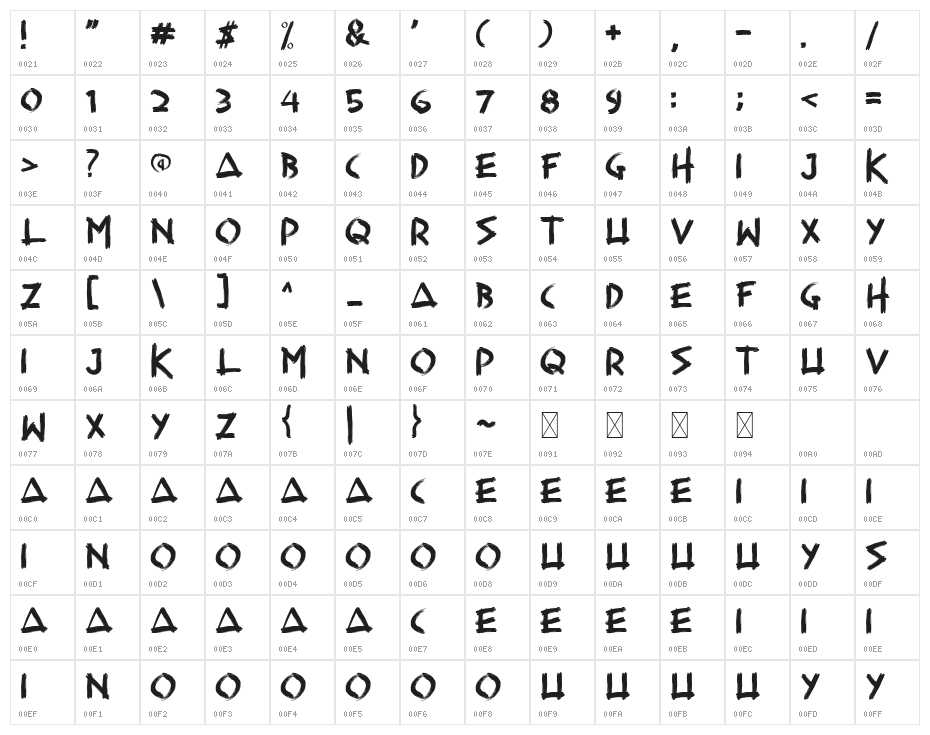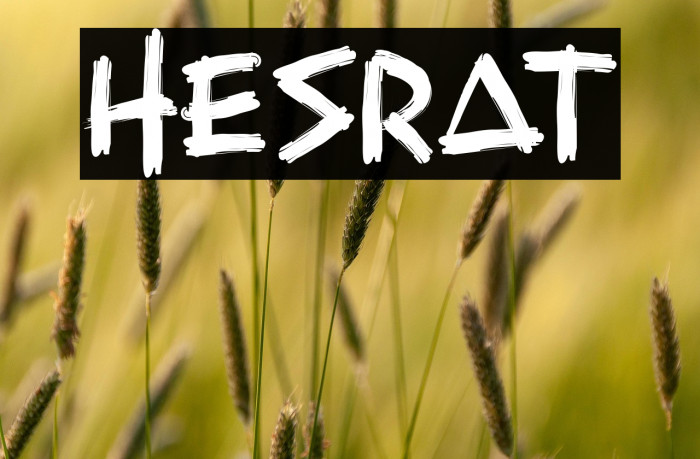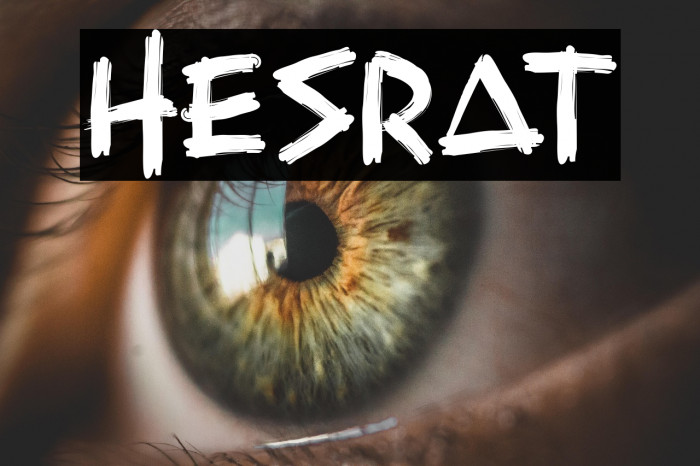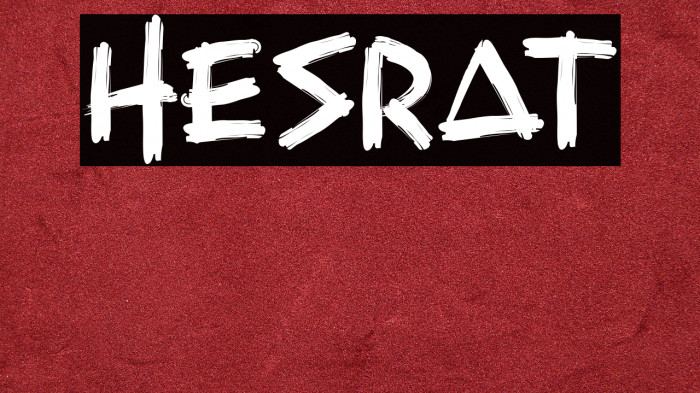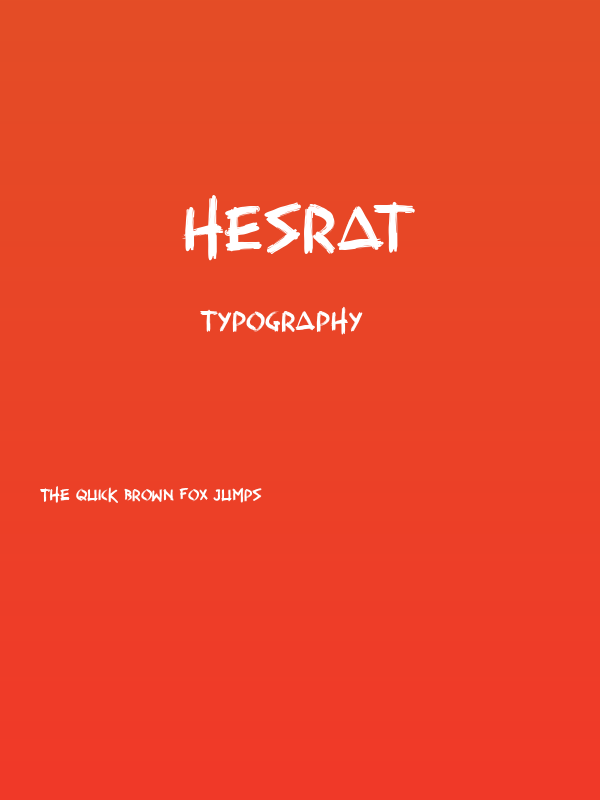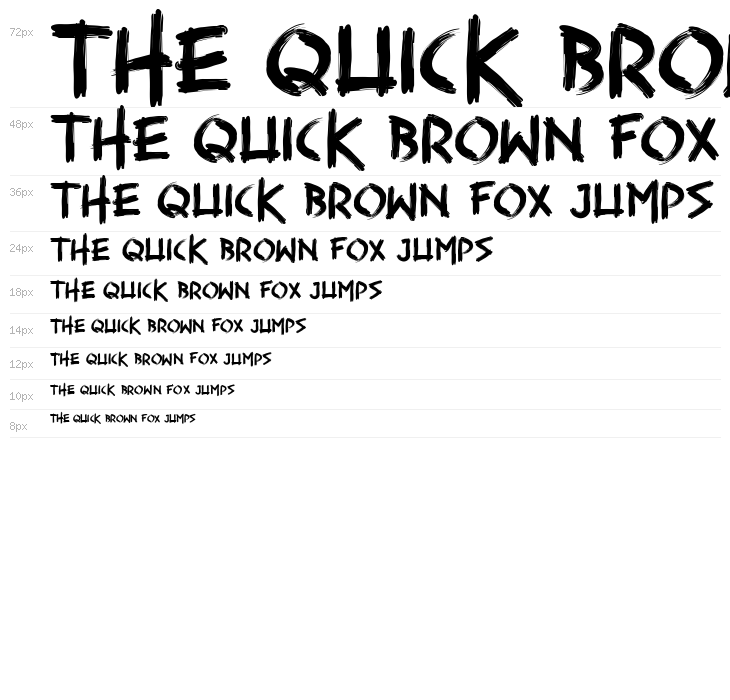
Hesrat Font
Hesrat Description
This font features a bold, expressive brushstroke style that conveys a sense of energy and dynamism. The characters are crafted with a rough, hand-painted appearance, giving them a unique and artistic flair. The strokes are uneven, with varying thicknesses that add to the font's organic feel. This style is reminiscent of traditional calligraphy but with a modern twist, making it suitable for creative and eye-catching designs. The uppercase and lowercase letters maintain a consistent style, while the numbers and special characters complement the overall aesthetic. The font's boldness ensures it stands out, making it ideal for impactful headlines and artistic projects.
| Proposed Projects | Ideal for posters, branding, album covers, and creative advertising campaigns. |